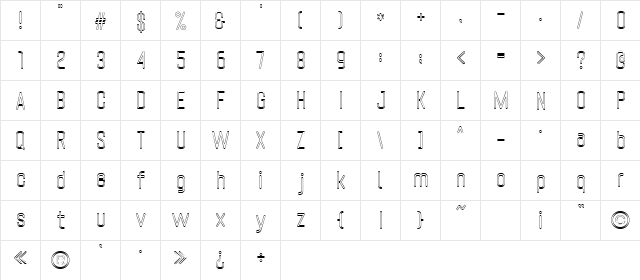
SpaghettiniPeperoncino Regular
Design Context for SpaghettiniPeperoncino Typeface
SpaghettiniPeperoncino is a composed and adaptable typeface that performs quietly and consistently across a wide range of design contexts.